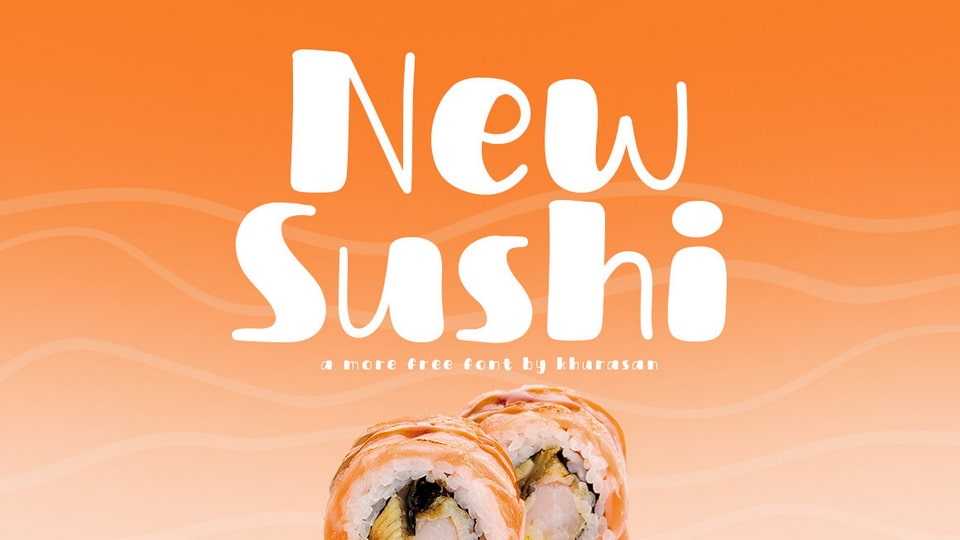
Download New Sushi font, a high-contrast hand-drawn typeface that brings a bold and lively touch of playfulness to your designs. New Sushi font features a striking and dynamic design, with each letter exuding a sense of daring movement.